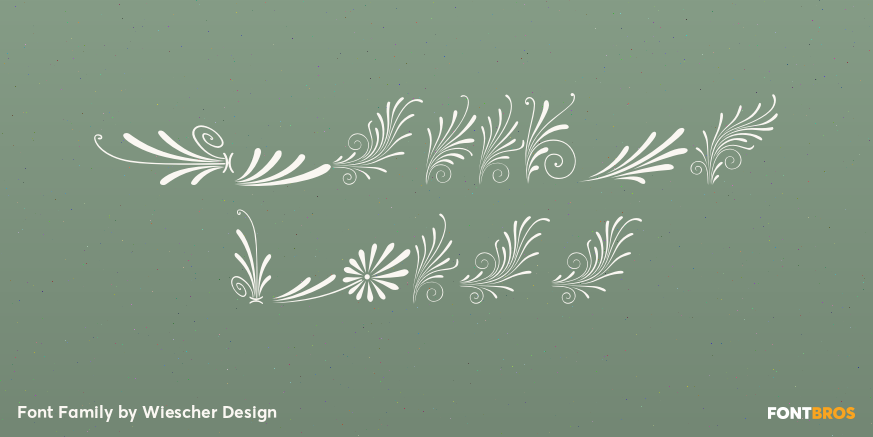
Fleurons Three
About Fleurons Three
Fleurons are embellishments and here is my third and so far nicest round. I found some old ones in London and made them more modern ones. These go very well with my scripts Nadine and Ellida and a lot of my other scripts!!! Yours once more in a beautiful…